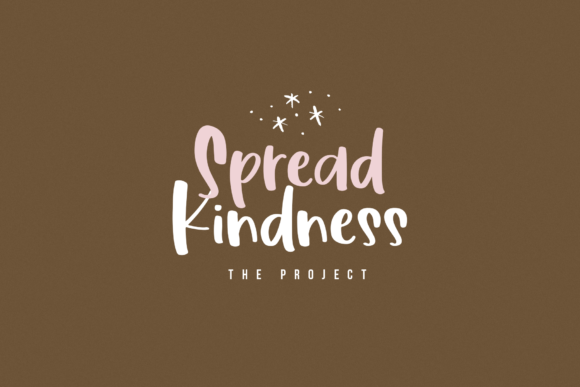
Thankful is a cute & chunky handwritten font!
The letters are smooth + bold and perfect for your crafting projects!
This font is perfect for quotes, shirt designs, websites, branding, children’s designs, blogs, logos, invitations and more!
Thankful is a cute & chunky handwritten font!
The letters are smooth + bold and perfect for your crafting projects!
This font is perfect for quotes, shirt designs, websites, branding, children’s designs, blogs, logos, invitations and more!